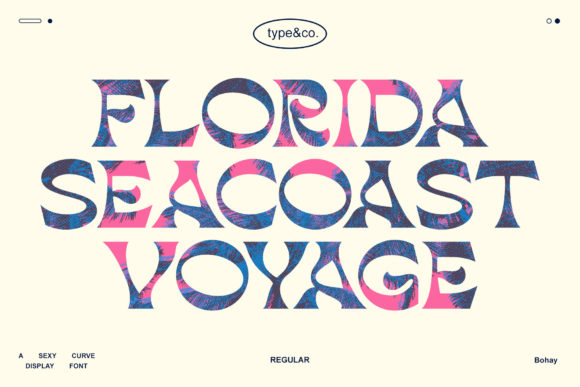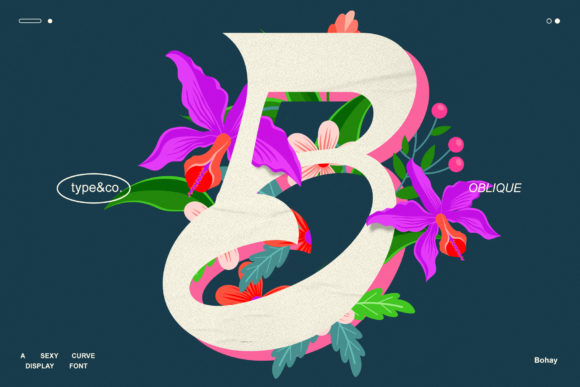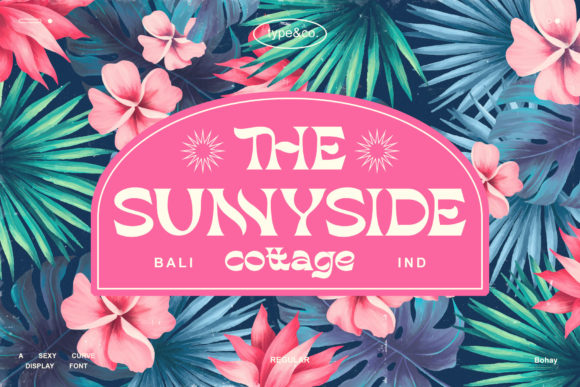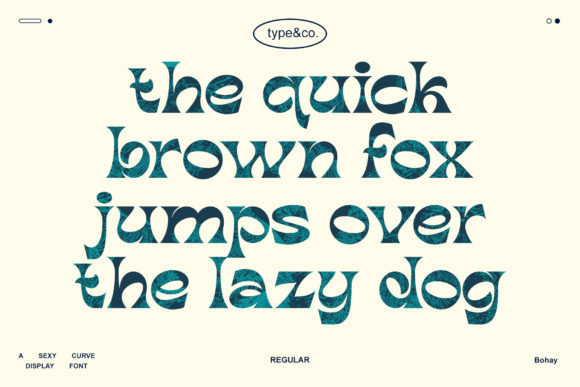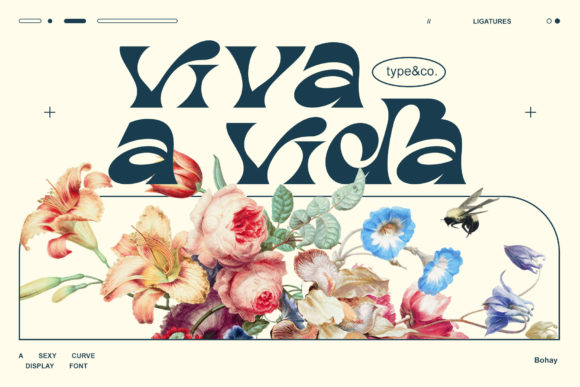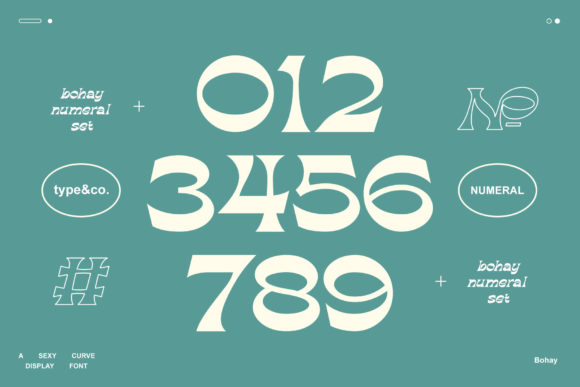
Discover the Bohay Font: Elevate Your Designs with a Touch of Style
In the world of typography, fonts play a crucial role in conveying the tone and aesthetic of a brand. For designers and crafters looking to add a unique touch to their projects, the Bohay Font is an exciting discovery. This stylish font has gained popularity for its versatility and distinctive charm, making it an excellent choice for various branding applications.
What is Bohay Font?
Bohay is more than just a font; it’s a statement piece for your designs. The name “Bohay” is derived from a slang term that translates to “beautiful body,” reflecting the font’s aim to bring beauty and elegance to your typography. Whether you’re working on a logo, t-shirt printing, sporting design, or any other branding project, Bohay offers a wide range of creative possibilities.
Key Features of Bohay Font
- PUA Encoding: One of the standout features of the Bohay Font is its PUA (Private Use Area) encoding. This means that the font includes a comprehensive set of glyphs and swashes that are easily accessible. Designers can experiment with various stylistic elements to create unique and eye-catching text.
- Versatility: The Bohay Font is incredibly versatile, making it suitable for a wide array of projects. From fashion and sports branding to personal and commercial use, this font adapts seamlessly to different design needs.
- Aesthetic Appeal: With its elegant and modern design, the Bohay Font adds a touch of sophistication to any project. Its stylish appearance ensures that your designs stand out and leave a lasting impression.
Applications of Bohay Font
The applications of the Bohay Font are vast and varied. Here are some of the most popular uses:
- Logo Design: Create stunning logos that capture the essence of your brand. The unique glyphs and swashes in Bohay allow for endless customization options.
- T-Shirt Printing: Elevate your apparel designs with the stylish and contemporary look of the Bohay Font. It’s perfect for fashion brands, event merchandise, or personal projects.
- Sporting Design: For sports-related branding, the Bohay Font offers a fresh and dynamic aesthetic. It’s ideal for team logos, jerseys, and promotional materials.
- Branding and Advertising: Use the Bohay Font to create compelling advertisements, brochures, and digital content that resonates with your audience.
Tips for Using Bohay Font
To make the most of the Bohay Font, consider the following tips:
- Experiment with Swashes: Take advantage of the PUA encoding to explore different swashes and glyphs. This will help you create a truly unique design.
- Combine with Other Fonts: Don’t be afraid to pair the Bohay Font with complementary fonts to add depth and contrast to your designs.
- Adjust Font Sizes: Play with different font sizes to emphasize certain words or phrases, creating a visual hierarchy in your design.
The Bohay Font is a valuable addition to any designer’s toolkit. Its unique blend of style, versatility, and accessibility makes it an excellent choice for a wide range of projects. Whether you’re a professional designer or a crafting enthusiast, the Bohay Font offers endless possibilities for creative expression. Discover the beauty of Bohay and take your designs to the next level.
In conclusion, the Bohay Font is more than just a typographic tool; it’s a means to infuse your designs with elegance and charm. Explore its features, experiment with its capabilities, and watch your designs transform with the beauty of Bohay.